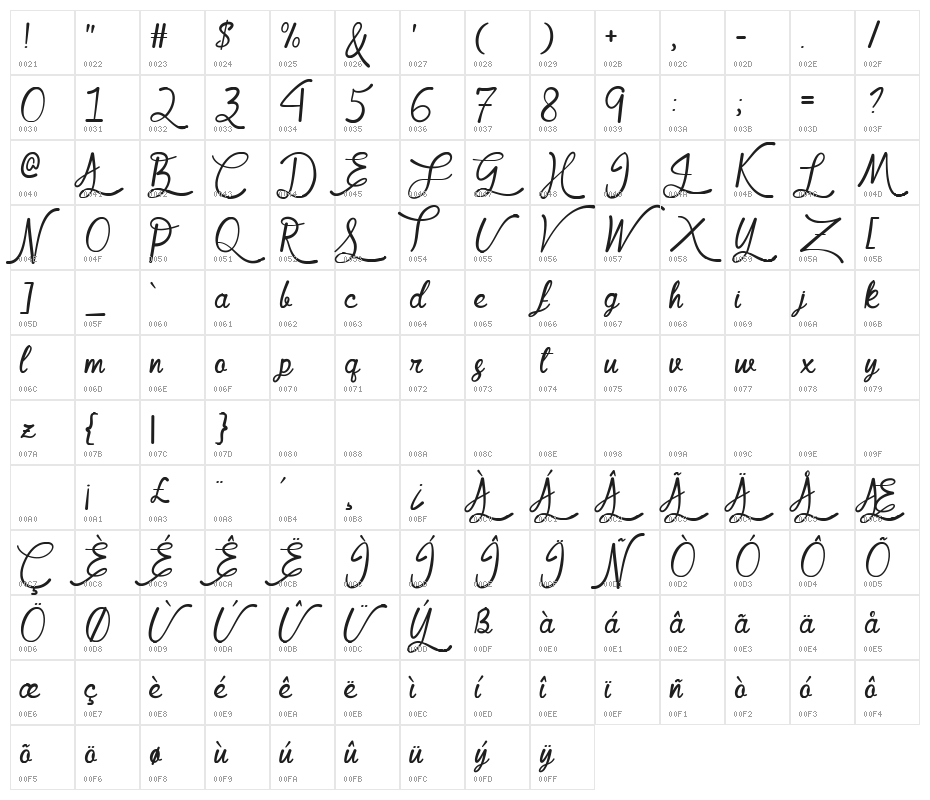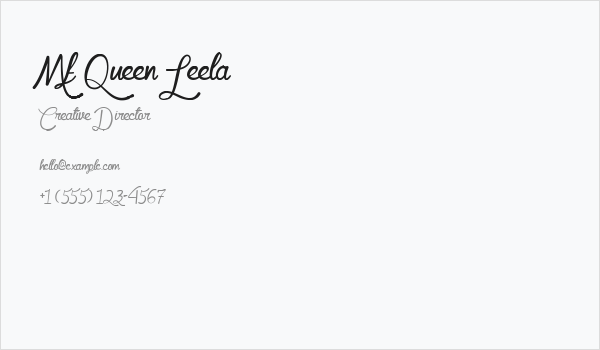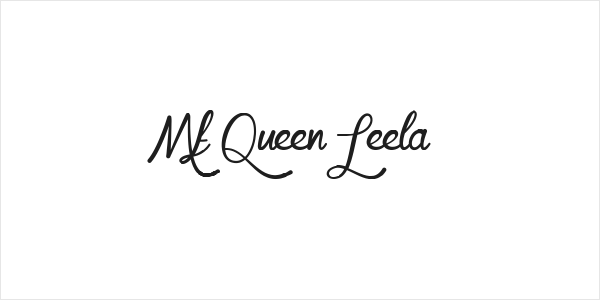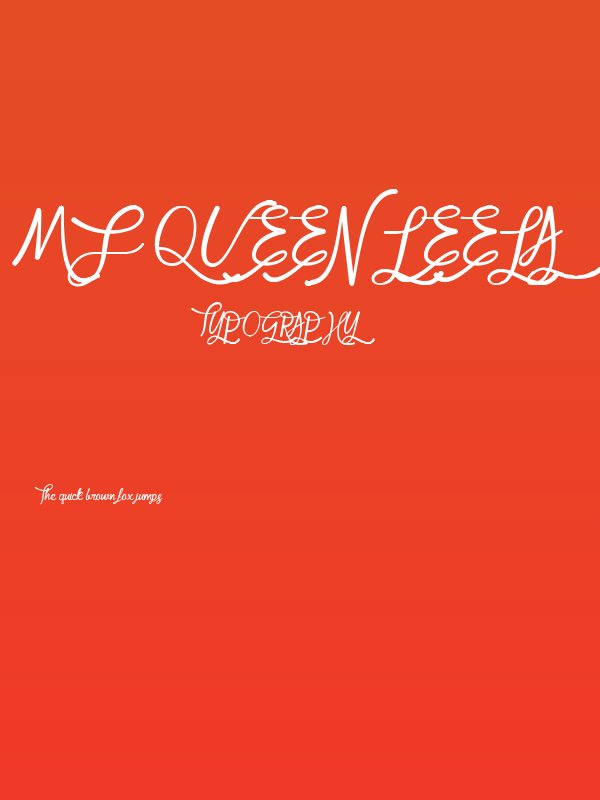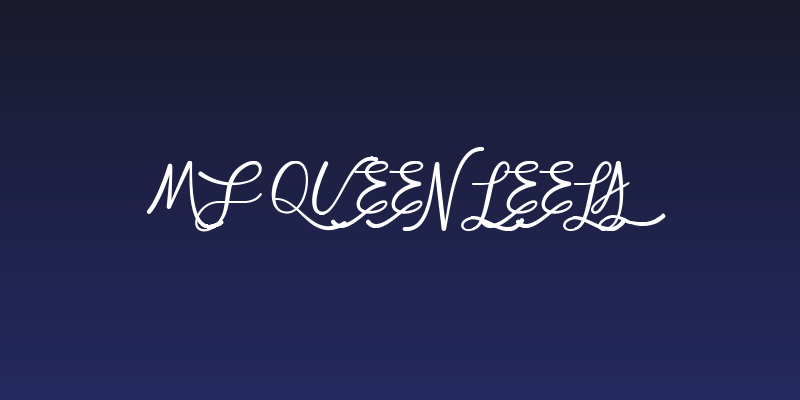
Mf Queen Leela Font
Mf Queen Leela Description
This font features a flowing, cursive style that exudes elegance and sophistication. The uppercase letters are characterized by sweeping curves and loops, giving them a graceful appearance. The lowercase letters maintain a consistent flow, with smooth connections between each character, enhancing readability while retaining a stylish flair. The numerals are designed with a similar fluidity, ensuring they complement the overall aesthetic. Special characters are thoughtfully integrated, maintaining the font's cohesive look. This font is perfect for projects that require a touch of class and refinement.
| Use Case | Headlines, Invitations, Branding |
| Proposed Projects | Ideal for wedding invitations, elegant branding, personal stationery, and upscale packaging. |